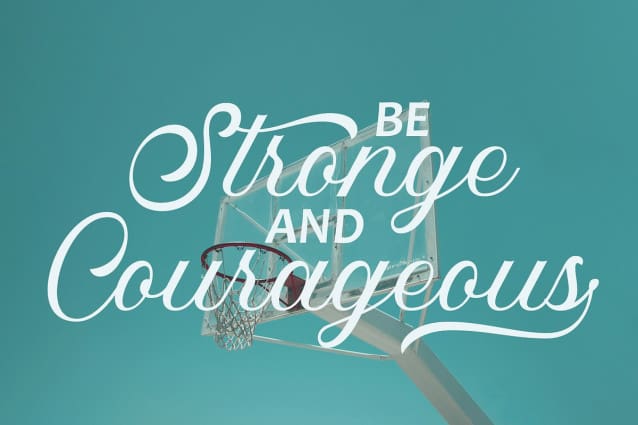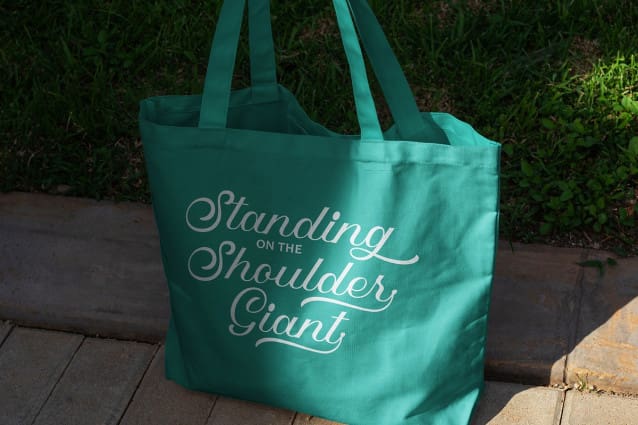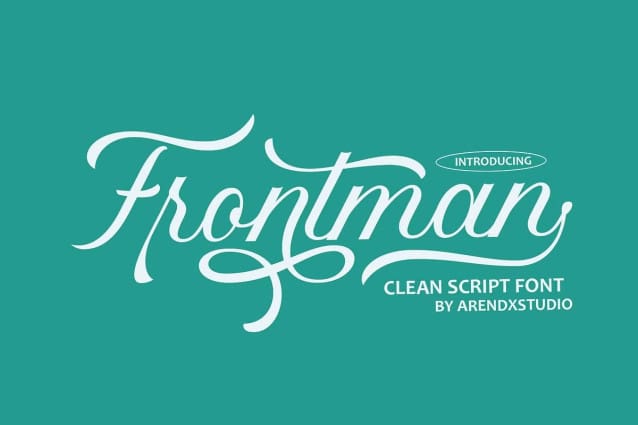
Frontman Font
Frontman Font is a clean and modern script font that combines simplicity with elegance. Designed to be versatile and easy to read, Frontman is perfect for a wide range of design projects, from branding to social media graphics.